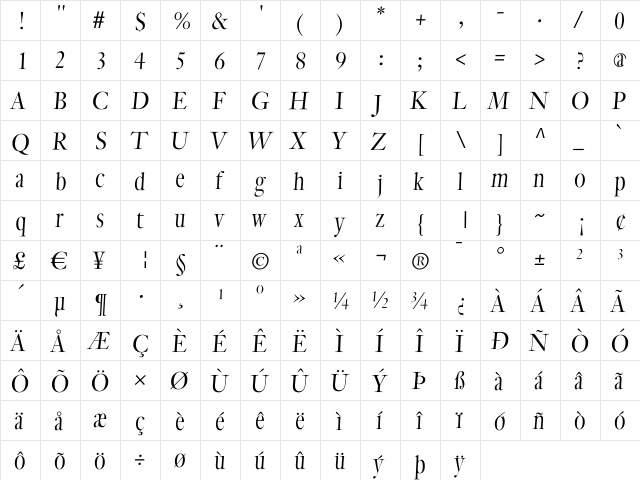
CybaPeeTX-heightOblique Regular
Design Context for CybaPeeTX-heightOblique Typeface
CybaPeeTX-heightOblique takes a measured approach to typography — its balanced proportions and neutral character make it a reliable workhorse for both digital and print work. The dynamic lean of this cut emphasises speed and emphasis in any layout.
Pro Tip: Try CybaPeeTX-heightOblique for annotation and caption copy alongside an upright companion — the contrast in angle creates a dynamic but ordered typographic system.